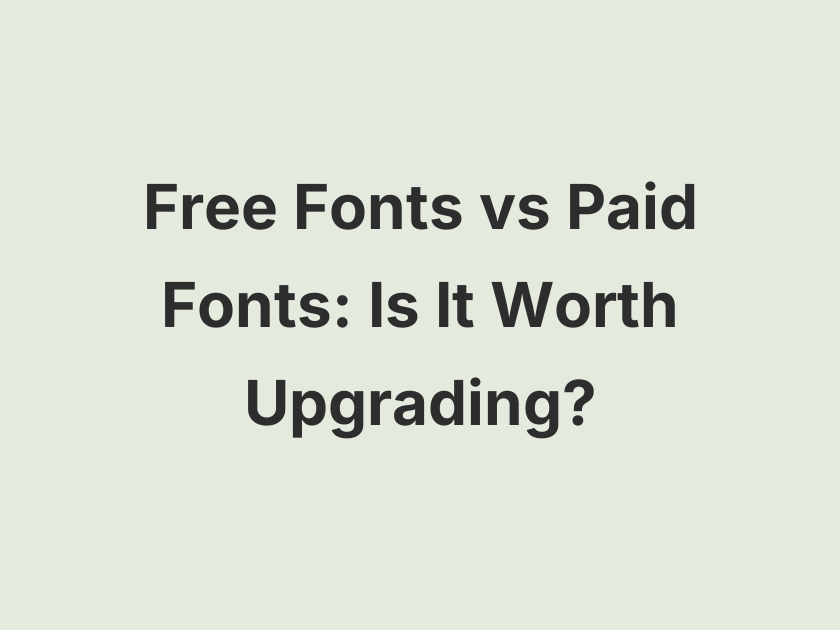
15 Free Fonts vs Paid Fonts: Is It Worth Upgrading?
The free fonts versus paid fonts debate used to have an easy answer: pay for quality, download free fonts when the budget was tight. That divide has mostly collapsed. Google Fonts now hosts variable families with the kerning, italics, and weight ranges that used to justify a foundry invoice, and plenty of studios ship entire brand systems without ever opening a type license. The honest question today is not whether free fonts are good enough, but which specific free fonts are good enough for your specific project, and where a paid upgrade still buys you something real.
What follows is a working shortlist of free Google Fonts that hold up against their paid counterparts in professional work, along with notes on where each one earns its keep and where you might still want to reach for a licensed alternative.
Interface text that stays legible at any size
Inter is the font that did the most to change the free-versus-paid conversation. Built specifically for screens, it has the tight spacing control and tall x-height that product teams used to pay for in Neue Haas Grotesk or Söhne, and it now ships in enough weights and optical adjustments to run an entire design system on its own.
It is everywhere now, which is its only real drawback. If your brand needs to feel distinctive rather than dependable, Inter’s ubiquity may work against you.
Professional documents that read cleanly at length
Adobe released this one for free, and it shows in the polish: even spacing, honest proportions, no awkward weights. It reads like a corporate paid typeface because it was built with the same rigor, just without the invoice.
Engineered typography for reports, dashboards, and code
Originally commissioned as IBM’s in-house corporate typeface, Plex Sans carries the structural discipline you would expect from a company that once licensed its identity type at enormous cost. Now it is free, paired with matching serif and monospace companions, and genuinely competitive with paid corporate type systems from major foundries.
Government forms, civic websites, and public information
Built by the U.S. government’s design team for federal websites, Public Sans favors clarity over personality. It is not the font to reach for if you want your brand to feel warm or expressive, but for interfaces, forms, and documentation it is as dependable as any paid workhorse sans.
Bold headlines with an American newspaper heritage
Franklin Gothic has anchored American editorial design for over a century, and its licensed digital revivals are not cheap. Libre Franklin gives you that same confident, slightly condensed character for free, with a wide enough weight range to run headlines and body copy from a single family.
Clean geometric letterforms for modern branding
Work Sans sits in the territory paid geometric sans like Futura or Century Gothic used to own, but with warmer curves and better working weights for body text. It is a sensible pick when a brief calls for “clean and modern” without much more direction than that.
Confident display type for editorial and advertising
Archivo has quietly become a favorite among designers who need something sturdier than Inter but more neutral than a display face. Its grotesque bones give it real presence in bold weights, and its expanded and condensed variants mean it can carry an entire layout without help.
Tech branding with a distinct retro-futurist edge
Derived from the monospaced Space Mono, this one has personality baked into its proportions, slightly squared curves, a mechanical rhythm to the letterforms. It fits startup and tech branding especially well, though its quirks mean it reads best in headlines and short bursts rather than long paragraphs.
Minimal design systems that need quiet confidence
Manrope is understated by design, built for interfaces where the typography should stay out of the way. It is a solid free stand-in for the paid geometric sans families that dominate SaaS branding, without the licensing overhead.
Bricolage Grotesque
Expressive display type for contemporary brand identities
Bricolage Grotesque
One of the newer additions to Google Fonts, Bricolage Grotesque brings a wobble and warmth to its grotesque structure that feels distinctly current. It is worth watching for anyone building a brand that wants to feel handmade and confident at once, though its personality means it competes better as a display face than a body text workhorse.
Warm serif type for editorial storytelling
Fraunces borrows the soft, ink-trap detailing of old-style book serifs while allowing enough variable-axis flexibility to swing from delicate to chunky within one family. Designers who would once have paid for a boutique display serif now have a free option with real character in the italics.
Long-form articles that need editorial credibility
Modeled on the transitional serifs newspapers have used for generations, Newsreader was built for exactly the kind of long-form reading where paid serif families like Tiempos or Freight have traditionally dominated. Its optical sizes adjust automatically for text and display use, a feature that used to be a paid-tier luxury.
For everything else, from marketing sites to editorial platforms to interface design, the free fonts above can carry professional work without apology.
Test any candidate at your actual working sizes before committing. A font that looks sharp in a specimen can behave differently once it is set in body copy or squeezed into a mobile navigation bar.
The most reliable approach is still to build a short list, load it into a real layout, and judge it there rather than in the abstract.